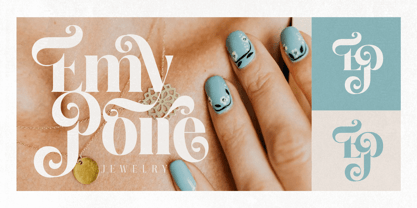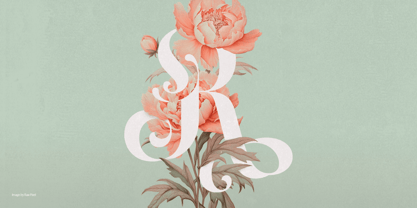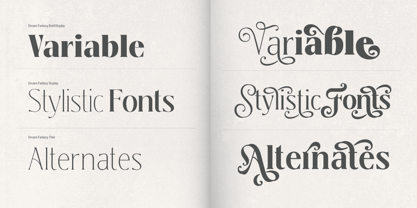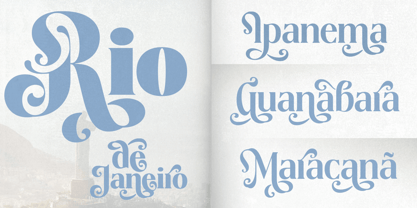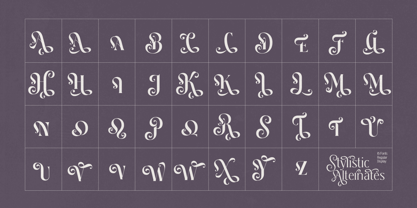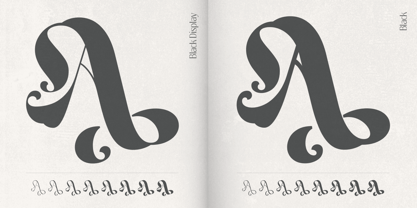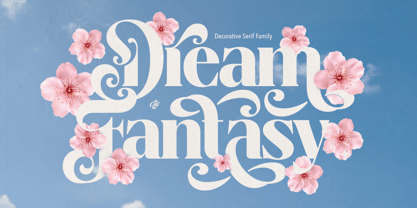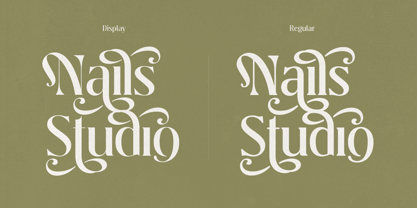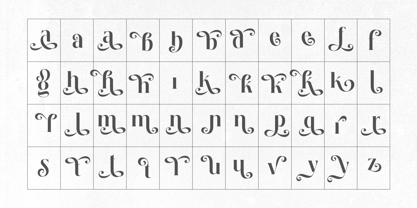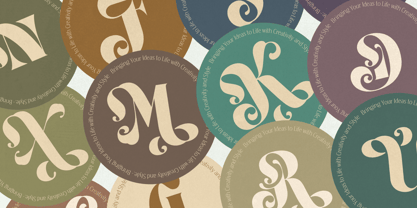
Dream Fantasy
La famille de polices Dream Fantasy a été conçue par Kadek Mahardika et publiée par Creativemedialab. Dream Fantasy contient 17 styles et options de package familial. En savoir plus sur cette famille
Dream Fantasy , a whimsical decorative serif font!
Inspired by the graceful curves of a tropical leaves in a magical forest, this font brings a touch of beauty and creativity to your designs.
With plenty of stylistic alternates, you can mix and match to create unique typography, stunning headings, eye-catching logos, or beautiful monograms.
Dream Fantasy comes in two styles, Regular and Display and each with eight different weights.
Plus, it includes a variable format for even more flexibility in weight!